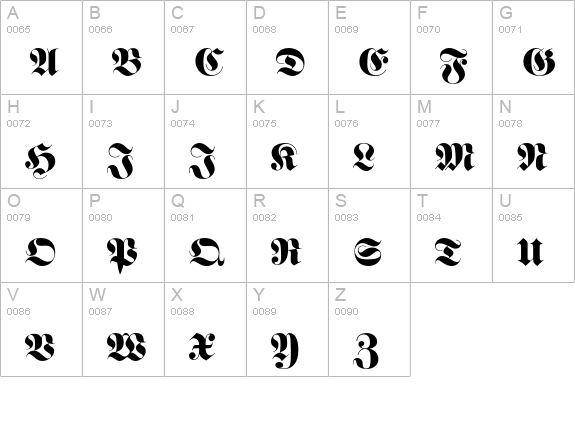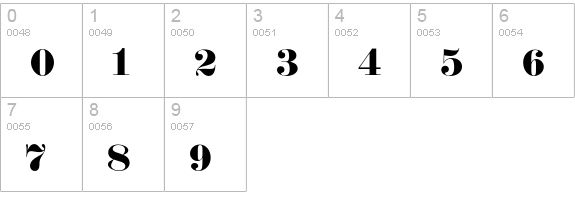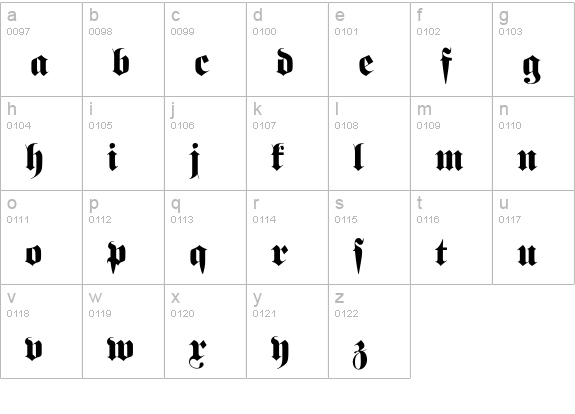
FrakturEF-Bold is a strong, high-contrast variant in the FrakturEF typeface family \xE2\x80\x94 well suited to headlines, attention-grabbing titles, and strong calls-to-action.
FrakturEF-Bold is a bold and distinctive font that exudes a classic and elegant charm. Its bold weight and sharp serifs make it perfect for adding a touch of sophistication to any design project. The strong and angular letterforms of FrakturEF-Bold evoke a sense of tradition and timelessness. What makes FrakturEF-Bold even more appealing is that it is available for free download at FontsMarket.com. This means that you can easily access this stunning font and use it in your projects without any cost. Whether you need to create striking headlines, eye-catching posters, or elegant invitations, FrakturEF-Bold is sure to make a bold statement. Download it today and elevate your designs with this exquisite typeface.